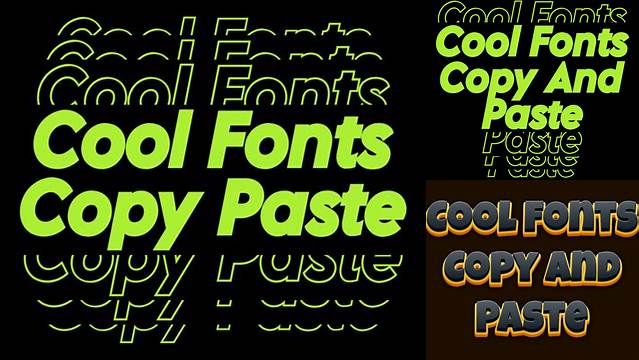
Cool Fonts For Logos: Copy & Paste Guide
Are you looking for cool fonts for logos that you can easily copy and paste? Well, you've come to the right place! Choosing the right font is crucial for branding, and it can really make your logo stand out. In this guide, we’ll dive into some awesome fonts and how you can use them.
1. Understanding the Importance of Font Choice in Logo Design
The significance of cool fonts for logos goes way beyond just aesthetics. The font you pick communicates your brand's personality, values, and overall vibe. Think about it: a playful, rounded font gives off a different impression than a sharp, modern one. Your font is often the first thing people notice, so it needs to make a solid first impression. When people see your logo, the font helps them instantly recognize and remember your brand.
Consider the target audience when selecting your cool fonts for logos. Are you trying to attract a younger demographic or a more sophisticated crowd? The font should resonate with them. Also, think about the message you want to convey. A tech company might opt for a sleek, minimalist font, while a bakery might choose something warm and inviting. Essentially, your font is a visual cue that tells a story about your brand, so choose wisely, guys!
Fonts also impact readability, especially when your logo appears in different sizes and formats. A font that looks great on a large banner might become illegible on a business card. Therefore, test your logo with the cool fonts for logos across various platforms to ensure it remains clear and recognizable. In short, font choice isn't just about picking something pretty; it's about strategically aligning your visuals with your brand identity.
2. Serif Fonts: Timeless Elegance for Your Logo
Serif fonts, characterized by those little strokes at the ends of letters, bring a sense of tradition and formality to any logo. They're like the classics of the font world, projecting cool fonts for logos with authority and sophistication. Think of brands like Times New Roman, which exudes a sense of trust and reliability. Using a serif font can immediately elevate your brand's perceived credibility, making it seem more established and dependable.
But don't think serif fonts are stuck in the past. Modern takes on these classics can add a contemporary edge. For instance, a slightly modernized serif can work wonders for a fashion brand, adding a touch of elegance without feeling stuffy. The key here is balance. Pair a traditional serif with a modern color palette or a minimalist design to keep things fresh and relevant. When searching for cool fonts for logos, consider how the serif font aligns with your brand's overall style. Ensure it complements your brand's voice and values, creating a consistent and cohesive visual identity.
When working with serif fonts, pay attention to the spacing and weight. Too little spacing can make the text look crowded, while too much can make it appear disjointed. Similarly, the weight of the font (bold, regular, light) can significantly impact its readability and visual impact. Experiment with different variations to find the perfect balance. In conclusion, serif fonts are a solid choice for brands aiming to project trustworthiness, elegance, and a sense of history. They offer timeless appeal that can stand the test of time.
3. Sans-Serif Fonts: Modern and Minimalist Choices
Sans-serif fonts are the cool, modern cousins of serif fonts, known for their clean lines and minimalist aesthetic. Without the extra strokes, these cool fonts for logos feel contemporary and approachable. Popular options like Helvetica and Arial are staples in the design world, often used by tech companies and startups aiming for a sleek and efficient look. Sans-serif fonts communicate simplicity and clarity, making them ideal for brands that value innovation and straightforwardness.
The versatility of sans-serif fonts also makes them a great choice for digital platforms. They tend to be more legible on screens compared to serif fonts, which can sometimes appear cluttered at smaller sizes. This makes them perfect for websites, apps, and social media, where readability is crucial. Plus, sans-serif fonts pair well with a variety of design styles. You can combine them with bold colors, geometric shapes, or minimalist layouts to create a visually striking logo.
When picking from cool fonts for logos, make sure it reflects your brand's personality. A rounded sans-serif can give off a friendly, approachable vibe, while a more angular one might project strength and precision. In a nutshell, sans-serif fonts are a fantastic option for brands looking to convey a modern, minimalist, and tech-savvy image. They’re clean, versatile, and work well across various platforms, ensuring your logo looks great everywhere.
4. Script Fonts: Adding a Personal Touch
Script fonts, with their flowing, handwritten style, are perfect for adding a personal and creative touch to your logo. These cool fonts for logos evoke a sense of elegance and individuality, making them ideal for brands that want to stand out. Think of companies in the beauty, fashion, or artisanal food industries—script fonts can beautifully convey a sense of craftsmanship and attention to detail.
The key to using script fonts effectively is to ensure readability. Intricate, overly decorative scripts can be difficult to read, especially in smaller sizes. Opt for a script that balances style with clarity. Pairing a script font with a simpler sans-serif font can also create a visually appealing contrast, making the script stand out without sacrificing legibility. Be careful with your letter spacing and line height. Tight spacing can make the script look cluttered, while too much spacing can make it appear disjointed. Fine-tune these details to achieve the perfect look.
Choose cool fonts for logos that truly reflects your brand's personality. A flowing, romantic script might suit a wedding planner, while a bold, brush-style script could work well for a creative agency. Script fonts offer a unique way to showcase your brand's individuality. Just remember to prioritize readability and balance when incorporating them into your logo design. When done right, script fonts can add a touch of elegance and personality that sets your brand apart.
5. Display Fonts: Making a Bold Statement
Display fonts are designed to grab attention. These cool fonts for logos are all about making a statement. They come in a wide range of styles, from quirky and playful to bold and impactful, making them perfect for brands that want to stand out. Display fonts are often used for headlines and logos, where their unique characteristics can shine.
When using display fonts, balance is essential. Because they're so eye-catching, it’s important not to overwhelm your audience. Pair a bold display font with a simpler, more neutral font for body text to create a visual hierarchy. This ensures that the display font stands out without making the overall design feel cluttered. Think about the message you want to convey. A retro-style display font can evoke a sense of nostalgia, while a geometric font might project a modern, futuristic vibe.
Experiment with different cool fonts for logos to find the perfect fit for your brand. Consider the font's weight, spacing, and overall style. Test it in various sizes and contexts to ensure it remains legible and impactful. Using display fonts strategically can add personality and flair to your brand, helping you make a memorable impression. So, if you’re looking to make a splash, don’t be afraid to explore the world of display fonts. They might just be the missing piece in your logo design.
6. Google Fonts: Free and Accessible Options
Google Fonts is a treasure trove of free and accessible typefaces, making it an excellent resource for designers on a budget. With a vast library of cool fonts for logos, you’re sure to find something that fits your brand’s style. One of the best things about Google Fonts is its ease of use. You can quickly browse, preview, and download fonts directly from the website, and they’re compatible with most design software.
Google Fonts offers a wide variety of styles, from classic serifs to modern sans-serifs, scripts, and display fonts. This means you can experiment with different looks without breaking the bank. The fonts are also optimized for web use, ensuring they look great on any device. When using Google Fonts, pay attention to licensing. While most fonts are free for commercial use, it’s always a good idea to double-check the specific terms. This will help you avoid any potential legal issues down the road. You can create a unique and professional logo without spending a fortune.
Explore the different categories to discover new and interesting cool fonts for logos. Combine different fonts to create a visual hierarchy. For instance, you might use a bold sans-serif for your logo and a more readable serif for your tagline. By using Google Fonts, you can create a professional-looking logo that reflects your brand's personality without exceeding your budget. Google Fonts is a fantastic resource that every designer should explore.
7. Adobe Fonts: Premium Choices for Professionals
Adobe Fonts, included with an Adobe Creative Cloud subscription, offers a vast library of high-quality typefaces for professional designers. These cool fonts for logos provide access to a curated selection of fonts, ensuring that you have the best options available. Adobe Fonts integrates seamlessly with Adobe Creative Suite, making it easy to use in programs like Photoshop, Illustrator, and InDesign.
The advantage of using Adobe Fonts is the quality and variety. You’ll find everything from classic fonts to cutting-edge designs, all created by top-notch typographers. This means you can be confident that your logo will look polished and professional. Adobe Fonts also simplifies licensing. The fonts are licensed for both print and digital use, so you don’t have to worry about any complicated legal issues. This allows you to focus on creating a great logo without any distractions.
Explore the different categories to discover new and inspiring cool fonts for logos. You can filter by style, weight, and other characteristics to find the perfect fit for your brand. Combine different fonts to create a visual hierarchy. Experiment with different sizes and weights to see what works best for your logo. Adobe Fonts is a valuable resource for any designer looking to create a professional and impactful logo. With its high-quality selection and seamless integration, it’s a must-have for serious creatives.
8. Font Pairing: Combining Fonts for Visual Harmony
Font pairing is the art of combining two or more fonts in a way that creates visual harmony. Mastering this skill can elevate your logo design, making it more engaging and professional. Start by choosing a dominant font for your logo’s main text. This should be a font that reflects your brand’s personality and is easy to read. Then, select a secondary font for your tagline or supporting text. The secondary font should complement the dominant font without overpowering it.
One popular approach is to pair a serif font with a sans-serif font. The contrast between the two styles can create a dynamic and visually appealing effect. For example, you might use a bold sans-serif for your logo and a classic serif for your tagline. Another approach is to pair two fonts from the same family but with different weights. Using a bold and a light version of the same font can create a subtle but effective contrast. Pay attention to the overall balance of your logo. Make sure the two fonts work well together and don’t clash. Experiment with different sizes and weights to see what looks best.
Tools like FontPair can help you discover effective cool fonts for logos. Using the right font pairing can make your logo stand out. Font pairing is a skill that takes practice, so don’t be afraid to experiment. With a little creativity, you can create a logo that is both visually appealing and effective at communicating your brand’s message.
9. Kerning and Tracking: Fine-Tuning Letter Spacing
Kerning and tracking are essential typography techniques that involve adjusting the spacing between letters to improve readability and visual appeal. Kerning refers to the adjustment of space between individual letter pairs. This is particularly important for letter combinations that can appear too close together or too far apart. Tracking, on the other hand, adjusts the spacing evenly across a range of letters. This can be useful for fine-tuning the overall density of your text.
When designing a logo, pay close attention to kerning and tracking. Even subtle adjustments can make a big difference in how your logo looks and feels. Start by zooming in on your logo and examining the spacing between each letter pair. Look for any areas where the letters seem too crowded or too far apart. Use kerning to adjust the spacing as needed. Next, adjust the tracking to fine-tune the overall density of your text. You might want to increase the tracking slightly to give your logo a more open and airy feel.
Tools like Adobe Illustrator and InDesign offer advanced kerning and tracking options. Mastering kerning and tracking can significantly improve the look and feel of your logo. These techniques are essential for creating a polished and professional design. By paying attention to the details, you can create a logo that is both visually appealing and easy to read. Always ensure that you select cool fonts for logos so that your brand does not look outdated.
10. Color Psychology: Matching Fonts with Brand Colors
Color psychology plays a crucial role in logo design, influencing how your brand is perceived. Matching your fonts with your brand colors can create a cohesive and impactful visual identity. Different colors evoke different emotions and associations. For example, blue often represents trust and stability, while red conveys excitement and energy. Consider the emotions you want your brand to evoke and choose colors that align with those feelings.
When selecting fonts for your logo, think about how they will interact with your brand colors. A bold, vibrant color might pair well with a simple, clean font. Conversely, a more subdued color might benefit from a more decorative font. Pay attention to contrast. Make sure your font stands out against the background color. Use online tools to test different color combinations and see how they look together. It's always advisable to consider cool fonts for logos.
By carefully considering color psychology and matching your fonts with your brand colors, you can create a logo that is both visually appealing and effective at communicating your brand’s message. Color and typography work together to create a powerful visual identity that resonates with your target audience. Always consider the message that you are trying to communicate to your audience with your brand.
11. Font Weight: Choosing the Right Thickness
Font weight refers to the thickness of the strokes in a typeface, ranging from light to bold. Choosing the right font weight is crucial for ensuring readability and conveying the right tone for your logo. A lighter font weight can create a delicate and elegant feel, while a heavier font weight can project strength and authority. Consider your brand's personality and choose a font weight that aligns with it.
When selecting a font weight, think about how it will look in different contexts. A lighter font weight might look great on a large banner but could become difficult to read on a business card. Conversely, a heavier font weight might look overpowering in a small size. Test your logo in various sizes and formats to ensure it remains legible and impactful. Experiment with different font weights to see what works best for your design.
Tools like Adobe Photoshop and Illustrator allow you to adjust the font weight with ease. Always select cool fonts for logos that align with the design of your brand. Use font weight strategically to create a visual hierarchy in your logo. A bolder font weight can be used for your logo's main text, while a lighter font weight can be used for your tagline. By carefully considering font weight, you can create a logo that is both visually appealing and effective at communicating your brand’s message.
12. Font Size: Ensuring Legibility at All Sizes
Font size is a critical factor in logo design, ensuring your brand name is legible across various platforms and applications. When designing a logo, it’s important to test it at different sizes to ensure it remains clear and recognizable. Start by considering the smallest size your logo will likely appear, such as on a business card or a mobile app icon. Make sure the font is still readable at this size.
Next, consider the largest size your logo will appear, such as on a billboard or a website banner. Ensure the font doesn’t become distorted or pixelated at larger sizes. Choose a font that maintains its clarity and impact regardless of size. Experiment with different font sizes to see what works best for your design. A slightly larger font size can make your logo more prominent, while a smaller font size can create a more subtle and refined look.
Tools like Adobe Illustrator and Photoshop allow you to easily resize your logo and preview it at different sizes. Pay attention to the spacing between letters and lines as you adjust the font size. Tight spacing can make the text look cluttered, especially at smaller sizes. By carefully considering font size, you can create a logo that is both visually appealing and easily recognizable. The cool fonts for logos ensure that it is easily readable in all sizes.
13. Licensing: Understanding Usage Rights
Understanding font licensing is crucial for avoiding legal issues when using fonts in your logo design. Fonts are intellectual property, and their use is governed by licensing agreements. Before using a font, carefully review the licensing terms to ensure you have the right to use it for your intended purpose. Some fonts are free for personal and commercial use, while others require a license fee.
When purchasing a font license, make sure it covers all the ways you plan to use the font. This includes using it in your logo, on your website, in marketing materials, and in any other applications. Pay attention to any restrictions on modifying the font. Some licenses prohibit you from altering the font in any way. Keep a record of all your font licenses for future reference. This will help you avoid any potential legal problems down the road.
Websites like MyFonts and FontShop offer a wide selection of fonts with clear licensing terms. Always read the fine print before using a font in your logo. Make sure you understand the usage rights and any restrictions that apply. Choose fonts with a license that covers all your intended uses. By understanding font licensing, you can protect yourself from legal issues and ensure that you’re using fonts ethically and legally. It is crucial to select cool fonts for logos that can be legally be used.
14. Creating Custom Fonts: A Unique Approach
Creating a custom font is a unique approach to logo design, allowing you to create a typeface that is perfectly tailored to your brand. A custom font can help you stand out from the competition and create a truly distinctive visual identity. Designing a custom font is a complex process that requires specialized skills and software. You may want to hire a professional type designer to help you create your font.
The process of creating a custom font involves designing each letter, number, and symbol individually. You’ll need to consider the font’s overall style, weight, and spacing. Experiment with different designs and refine your font until it meets your exact specifications. Once your font is designed, you’ll need to convert it into a usable font file format, such as TTF or OTF. This will allow you to use your font in design software like Adobe Illustrator and Photoshop.
Software like FontLab Studio and Glyphs are popular choices for creating custom fonts. A custom font can be a valuable investment for your brand. It can help you create a unique and memorable logo that sets you apart from the competition. By creating a custom font, you can have complete control over your brand’s typography and ensure that it perfectly aligns with your brand’s personality. Always select cool fonts for logos.
15. Font Generators: Quick and Easy Options
Font generators are online tools that allow you to quickly and easily create text designs using a variety of fonts and styles. These tools can be useful for creating mockups or experimenting with different font options for your logo. Many font generators offer a wide selection of fonts, colors, and effects. You can simply type in your brand name or slogan and see how it looks in different styles.
Font generators are not a substitute for professional design software. The fonts and styles offered by font generators are often limited and may not be of the highest quality. Use font generators as a starting point for your logo design. Experiment with different options and see what catches your eye. Then, take your favorite designs and refine them using professional design software like Adobe Illustrator or Photoshop.
Websites like Cool Text and Font Meme offer a variety of font generators. Font generators can be a fun and easy way to explore different font options. They can help you get a sense of what styles you like and what might work well for your brand. Don't rely solely on font generators for your logo design. Use them as a tool for inspiration and experimentation, and then take your ideas to the next level with professional design software. It is essential to find cool fonts for logos.
16. Analyzing Competitor Logos: Learning from the Best
Analyzing competitor logos is a valuable exercise in logo design, allowing you to learn from the best and identify opportunities to differentiate your brand. Start by identifying your main competitors and gathering examples of their logos. Examine each logo closely, paying attention to the font, colors, shapes, and overall design.
What fonts are your competitors using? Are they using serif fonts, sans-serif fonts, or something else? How do these fonts reflect their brand’s personality? What colors are they using? Do these colors align with their brand’s values? What shapes and symbols are they using? Do these elements convey a clear message? Identify what works well in your competitors’ logos and what doesn’t. Look for opportunities to differentiate your brand and create a logo that stands out from the crowd.
Websites like LogoLounge and Brand New offer extensive collections of logos from various industries. By analyzing competitor logos, you can gain valuable insights into current design trends and best practices. Use this knowledge to inform your own logo design process and create a logo that is both effective and unique. This can help you to come up with a cool fonts for logos that will make your brand stand out.
17. Testing Your Logo: Getting Feedback
Testing your logo with your target audience is crucial for ensuring it resonates and effectively communicates your brand’s message. Once you’ve created a logo design, gather feedback from a diverse group of people who represent your target audience. Show them your logo and ask them what it makes them think and feel.
What is their initial reaction to your logo? Does it appeal to them? What message does your logo convey? Does it accurately reflect your brand’s personality and values? Is your logo memorable? Do they think it will stand out from the competition? Gather as much feedback as possible and use it to refine your logo design. Make any necessary changes to improve its effectiveness and appeal.
Online survey tools like SurveyMonkey and Google Forms can be useful for gathering feedback on your logo. Create a survey and share it with your target audience. Ask them specific questions about your logo’s design, message, and appeal. Testing your logo with your target audience is essential for ensuring it will be well-received and effective. Use the feedback you receive to improve your logo and create a design that resonates with your target audience. You can create a better brand with cool fonts for logos.
18. Copy and Paste Considerations: Maintaining Quality
When copying and pasting fonts for your logo, it’s important to maintain quality and ensure consistency across all platforms. Copying and pasting fonts directly from one application to another can sometimes result in formatting issues or loss of quality. To avoid these problems, use professional design software like Adobe Illustrator or Photoshop.
When copying and pasting text, make sure you’re using the correct font, size, weight, and spacing. Double-check your logo in different applications and on different devices to ensure it looks consistent everywhere. If you’re using a font that is not available on a particular platform, consider using a web-safe font as a fallback. Web-safe fonts are fonts that are commonly available on most computers and devices.
Websites like Google Fonts offer a wide selection of web-safe fonts. When copying and pasting fonts for your logo, always maintain quality and ensure consistency across all platforms. By using professional design software and paying attention to detail, you can create a logo that looks great everywhere. This includes selecting cool fonts for logos that is optimized to be copy and pasted.
19. Avoiding Common Font Mistakes
Avoiding common font mistakes is crucial for creating a professional and effective logo. One common mistake is using too many fonts. Using more than two or three fonts in your logo can make it look cluttered and confusing. Stick to a limited number of fonts and make sure they complement each other.
Another common mistake is choosing fonts that are difficult to read. Make sure your font is legible at all sizes. Avoid fonts that are too decorative or have unusual shapes. Another mistake is using fonts that are outdated or overused. Choose fonts that are modern and unique. Avoid fonts that are commonly used in other logos or designs.
Websites like Typewolf offer a curated selection of modern and unique fonts. Always proofread your logo carefully to catch any spelling or grammatical errors. Make sure your font is consistent across all platforms. By avoiding common font mistakes, you can create a logo that is professional, effective, and memorable. This includes avoiding cool fonts for logos that look unprofessional.
20. Mobile Optimization: Ensuring Readability on Small Screens
Mobile optimization is essential for ensuring your logo looks great on small screens. With the increasing use of mobile devices, it’s important to make sure your logo is legible and effective on smartphones and tablets. When designing your logo, test it on a variety of mobile devices to see how it looks.
Make sure your font is readable on small screens. Avoid fonts that are too thin or have intricate details. Consider using a simpler font for your mobile logo. Simplify your logo design for mobile devices. Remove any unnecessary elements that might clutter the design. Make sure your logo is scalable. It should look good at any size, from a small app icon to a large website banner.
Websites like Responsinator allow you to preview your logo on different mobile devices. Always optimize your logo for mobile devices. By ensuring your logo looks great on small screens, you can reach a wider audience and create a stronger brand presence. When optimizing for mobile, you must select cool fonts for logos that is easier to read on smaller screens.
21. Legal Considerations: Trademarking Your Font
Trademarking your font can protect your brand's unique typography and prevent others from using it without permission. A trademark is a legal protection for your brand's name, logo, and other identifying elements. Trademarking your font can give you exclusive rights to use it in your industry.
The process of trademarking a font involves submitting an application to your country's trademark office. You'll need to provide detailed information about your font, including its name, design, and intended use. You'll also need to pay a filing fee. The trademark office will review your application and determine whether your font is eligible for trademark protection.
Websites like the United States Patent and Trademark Office (USPTO) provide information about trademarking fonts. Trademarking your font can be a valuable investment for your brand. It can protect your brand's unique typography and prevent others from using it without permission. Seek legal advice. Always select cool fonts for logos that do not infringe on an existing trademarked font.
22. The Future of Logo Fonts: Trends to Watch
The future of logo fonts is constantly evolving, with new trends emerging all the time. Staying up-to-date on the latest trends can help you create a logo that is modern, relevant, and effective. One trend to watch is the use of variable fonts. Variable fonts allow you to adjust various aspects of a font, such as its weight, width, and slant.
This gives you greater flexibility and control over your typography. Another trend is the use of geometric fonts. Geometric fonts are characterized by their clean lines and simple shapes. They are often used in modern and minimalist logos. Another trend is the use of hand-drawn fonts. Hand-drawn fonts add a personal and authentic touch to your logo.
Websites like Creative Boom and Design Week report on the latest design trends. Keep an eye on the latest trends in logo fonts. By staying up-to-date on the latest trends, you can create a logo that is modern, relevant, and effective. Select cool fonts for logos that fit new trends.
23. Resources for Finding Inspiration
Finding inspiration for your logo design can be a challenge, but there are many resources available to help you. One great resource is online logo galleries. These galleries showcase logos from various industries and styles. Browsing these galleries can give you ideas for your own logo design.
Another great resource is design blogs. Design blogs often feature articles about logo design, typography, and branding. These articles can provide valuable insights and inspiration. Social media platforms like Pinterest and Instagram are also great resources for finding logo inspiration. Search for hashtags like #logodesign, #typography, and #branding to discover inspiring logos.
Websites like Dribbble and Behance are popular platforms for designers to showcase their work. Use these resources to find inspiration for your logo design. By exploring different resources and gathering ideas, you can create a logo that is both unique and effective. Always select cool fonts for logos that inspire you.
24. Working with a Designer: Collaboration Tips
Working with a designer can be a great way to create a professional and effective logo. When working with a designer, it’s important to communicate your vision clearly. Provide the designer with a detailed brief outlining your brand’s personality, values, and target audience. Share examples of logos that you like and explain why you like them. Be open to the designer’s ideas and suggestions. A good designer will have valuable insights and expertise.
Provide the designer with feedback throughout the design process. Let them know what you like and what you don’t like. Be specific and constructive in your feedback. Be respectful of the designer’s time and expertise. Avoid making unreasonable demands or changes. Be willing to compromise. The design process is a collaboration, and it’s important to work together to create the best possible logo. Ensure that the designer is choosing cool fonts for logos.
Websites like AIGA and Dribbble offer directories of professional designers. By working with a designer, you can create a logo that is both professional and effective. Collaboration can help you achieve the perfect logo.
25. DIY Logo Design: Tools and Techniques
DIY logo design can be a cost-effective way to create a logo for your brand. If you’re on a tight budget, there are many tools and techniques you can use to design your own logo. One option is to use online logo makers. These tools provide templates and design elements that you can use to create your logo.
Another option is to use graphic design software like Adobe Illustrator or Photoshop. These programs offer more advanced features and flexibility than online logo makers. If you’re using graphic design software, start by sketching out your logo ideas on paper. Experiment with different fonts, colors, and shapes. Keep your design simple and clean. A simple logo is more memorable and effective. Get feedback from friends, family, and colleagues.
Websites like Canva and LogoMaker offer online logo makers. DIY logo design can be a fun and rewarding experience. With the right tools and techniques, you can create a logo that is both professional and effective. You can find many cool fonts for logos to use for free to create your own logo.
26. Iteration: Refining Your Logo Over Time
Iteration is an essential part of the logo design process, allowing you to refine your logo over time and ensure it remains relevant and effective. Your logo should not be static. It should evolve as your brand evolves. Review your logo periodically and make any necessary changes.
Is your logo still accurately reflecting your brand’s personality and values? Is it still resonating with your target audience? Is it still standing out from the competition? Make small, incremental changes to your logo over time. Avoid making drastic changes that could confuse your customers. Test your changes with your target audience and gather feedback. Use this feedback to inform your iteration process.
Websites like Brand New often feature redesigned logos. Iteration is a continuous process. By regularly reviewing and refining your logo, you can ensure it remains relevant and effective. When iterating over your design, you should make sure that you are always optimizing cool fonts for logos.
27. Common Logo Design Myths Debunked
There are many myths surrounding logo design, and it’s important to debunk these myths to create an effective logo. One common myth is that a logo needs to be complex and intricate. In reality, simple logos are often more memorable and effective. Another myth is that a logo needs to be trendy. While it’s important to stay up-to-date on design trends, your logo should be timeless and enduring.
Another myth is that a logo needs to be expensive. While hiring a professional designer can be a valuable investment, it’s possible to create a great logo on a budget. Another myth is that a logo needs to appeal to everyone. Your logo should appeal to your target audience, not necessarily everyone. Focus on creating a logo that accurately reflects your brand’s personality and values. And remember to choose cool fonts for logos.
Websites like Logo Design Love often debunk common logo design myths. By understanding and debunking these myths, you can create a logo that is both effective and memorable.
28. The Psychology of Shapes in Logo Design
The psychology of shapes plays a crucial role in logo design, influencing how your brand is perceived. Different shapes evoke different emotions and associations. Circles often represent unity, harmony, and completeness. Squares and rectangles often represent stability, reliability, and trustworthiness. Triangles can represent power, energy, and dynamism.
Consider the emotions you want your brand to evoke and choose shapes that align with those feelings. Combine different shapes to create a more complex and nuanced design. Pay attention to the overall balance of your logo. Make sure the shapes work well together and don’t clash. Use shapes strategically to create a visual hierarchy in your logo. For instance, you might use a bold shape to draw attention to your logo's main element.
Books like “The Shape of Design” by Frank Chimero explore the psychology of shapes in detail. By carefully considering the psychology of shapes, you can create a logo that is both visually appealing and effective at communicating your brand’s message. It's always advisable to choose cool fonts for logos to complement the shapes you use.
29. Long-Term Brand Consistency: Font Usage Guidelines
Long-term brand consistency is essential for building brand recognition and trust. One key aspect of brand consistency is font usage. Create font usage guidelines for your brand and stick to them consistently. Your font usage guidelines should specify which fonts to use for your logo, website, marketing materials, and other applications.
It should also specify the font sizes, weights, and styles to use. Share your font usage guidelines with all employees and partners. Ensure that everyone is using the correct fonts in all brand communications. Review your font usage guidelines periodically and make any necessary updates. Consistency in your branding, which includes cool fonts for logos, helps to strengthen your brand.
Websites like Brand Style Guides offer examples of font usage guidelines. By creating and enforcing font usage guidelines, you can ensure long-term brand consistency. Consistency is key to building a strong and recognizable brand.
30. Measuring Logo Effectiveness: Key Metrics
Measuring logo effectiveness is crucial for determining whether your logo is achieving its intended goals. There are several key metrics you can use to measure logo effectiveness. One metric is brand recognition. How well do people recognize your logo? You can measure brand recognition through surveys and focus groups.
Another metric is brand recall. How well do people remember your logo? You can measure brand recall by asking people to draw your logo from memory. Another metric is brand association. What associations do people have with your logo? You can measure brand association through surveys and interviews.
Use these metrics to measure the effectiveness of your logo. If your logo is not performing well, consider making changes to improve its effectiveness. Always select cool fonts for logos that can be easily remembered.